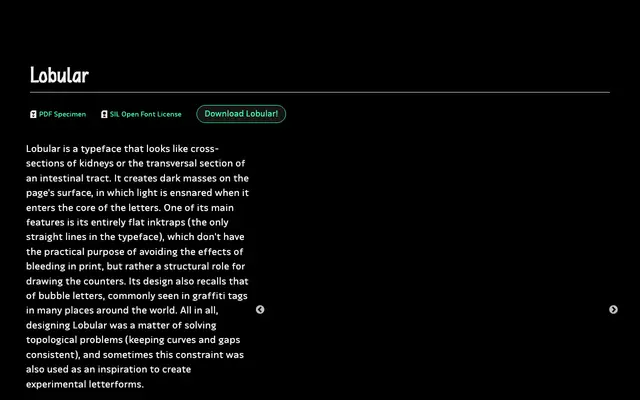
Lobular
An experimental display typeface by Ariel Martín Pérez built around bulbous, biomorphic letterforms that evoke kidney cross-sections and graffiti bubble letters.
Designed by Ariel Martín Pérez and released under the SIL Open Font License, Lobular draws its forms from biological cross-sections and urban bubble lettering, creating dense dark masses on the page where light is caught inside the counters. Flat inktraps serve a purely structural role, defining the counters rather than compensating for ink spread in print. The design is the product of resolving topological constraints, keeping curves and gaps consistent, and at times using those constraints as a prompt for experimental letterforms.
Lobular is a display typeface with organic, bulbous letterforms inspired by biological cross-sections and graffiti bubble letters, with flat inktraps used as structural drawing tools rather than functional print aids.